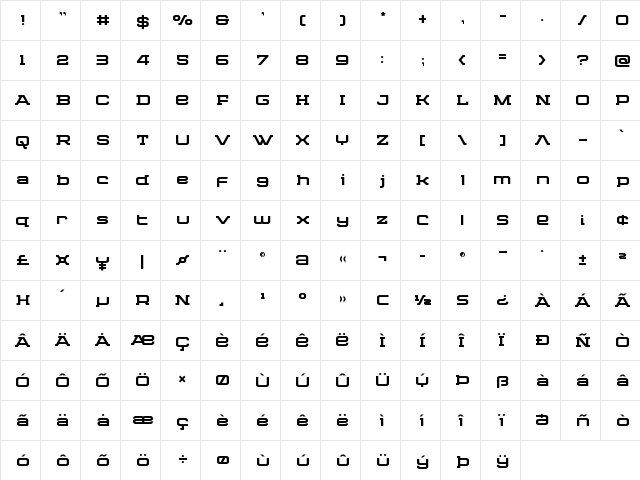
Cydonia Century Title Regular Font Preview
Cydonia Century Title Regular
Cydonia Century Title Regular Font Details
Design Context for Cydonia Century Title Typeface
Cydonia Century Title offers clean, dependable letterforms without strong stylistic allegiance, making it a practical choice for designers who need flexibility.